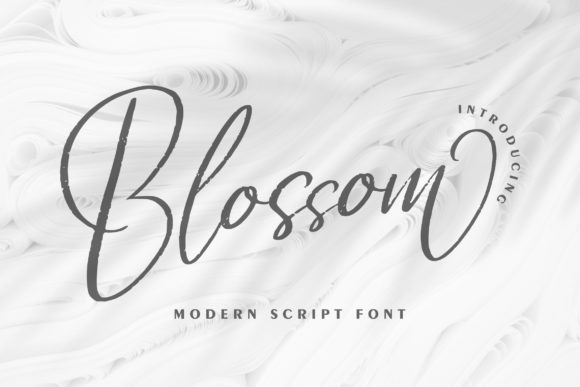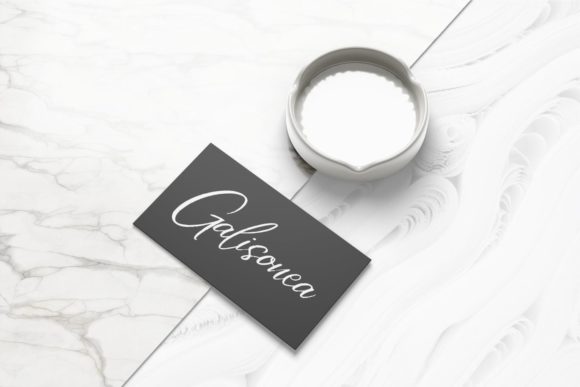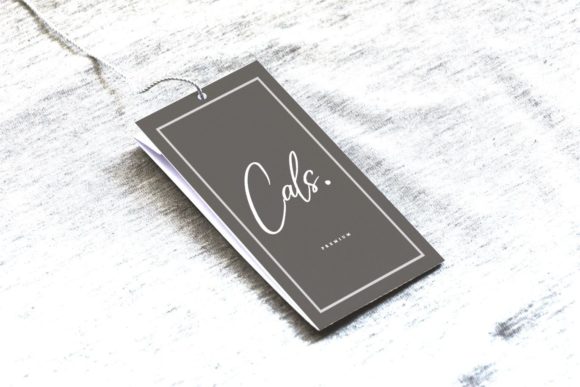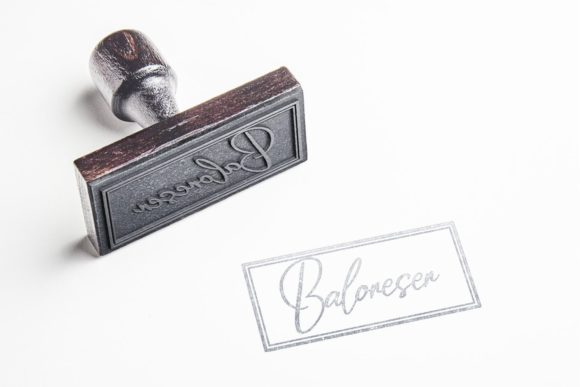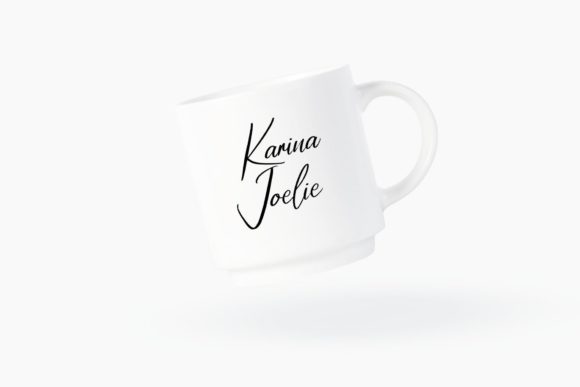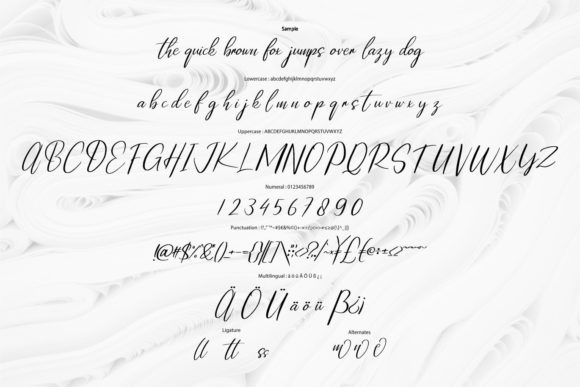
Blossom Font
About Blossom Font
Blossom is a flowing and stylish handwritten font. It is the best choice for creating eye catching logos, branding and quotes. Every letter has a unique and beautiful touch, which will make your design come alive!